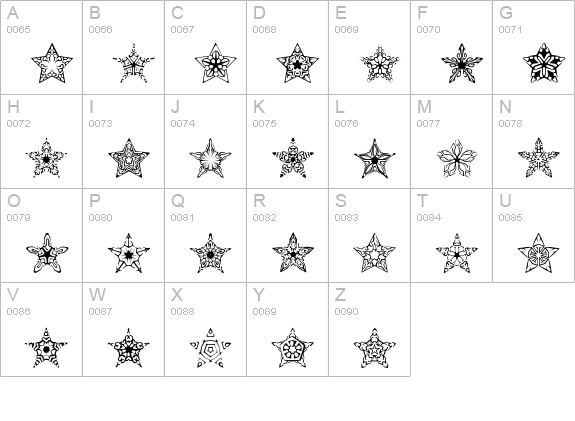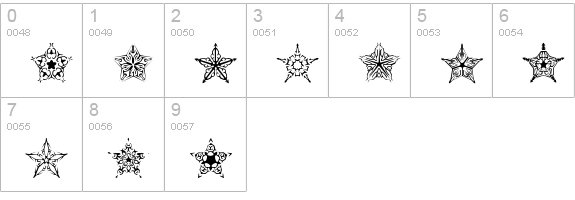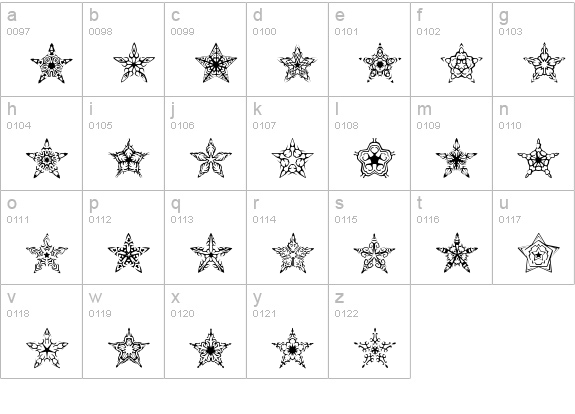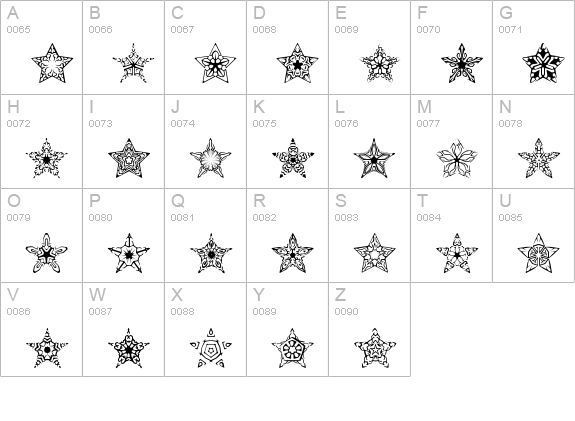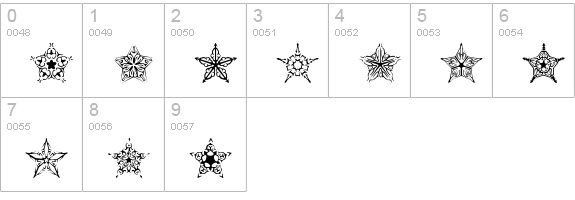
90 Stars BRK font is a stunning display typeface that exudes elegance and sophistication. With its intricate design and unique star-shaped glyphs, this font is perfect for adding a touch of glamour to any project. Whether you are designing a poster, logo, or greeting card, 90 Stars BRK font will surely make a bold statement. The best part is that this font is completely free to download at FontsMarket.com. You can easily access this beautiful typeface and use it in your personal and commercial projects without any cost. Don't miss out on the opportunity to elevate your designs with the captivating charm of 90 Stars BRK font. Download it today and let your creativity shine!